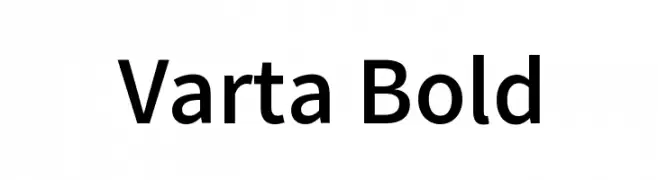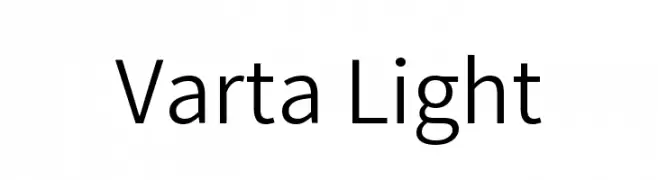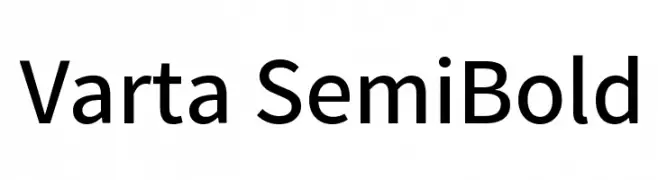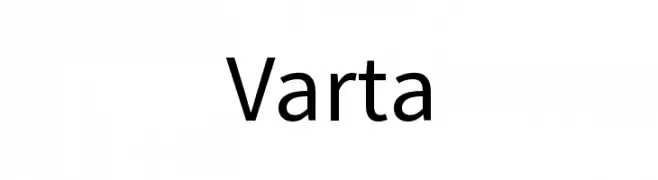
A clean, modern sans-serif font with excellent legibility and balance.
A bold, modern sans-serif font with excellent legibility and a professional appearance.
A modern, semi-bold sans-serif font with clean lines and balanced proportions.
A clean and modern sans-serif font with excellent readability.